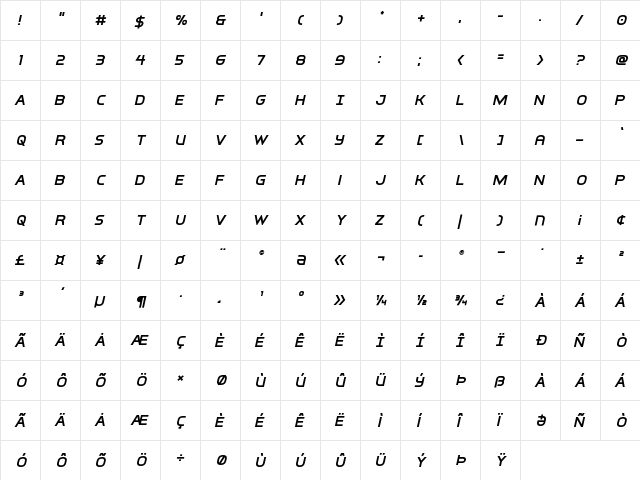
Design Context for Inter-Bureau Semi-Bold Italic Typeface
Inter-Bureau Semi-Bold Italic takes a measured approach to typography — its balanced proportions and neutral character make it a reliable workhorse for both digital and print work. The dynamic lean of this cut emphasises speed and emphasis in any layout. Its bold stroke weight gives it real presence on the page.